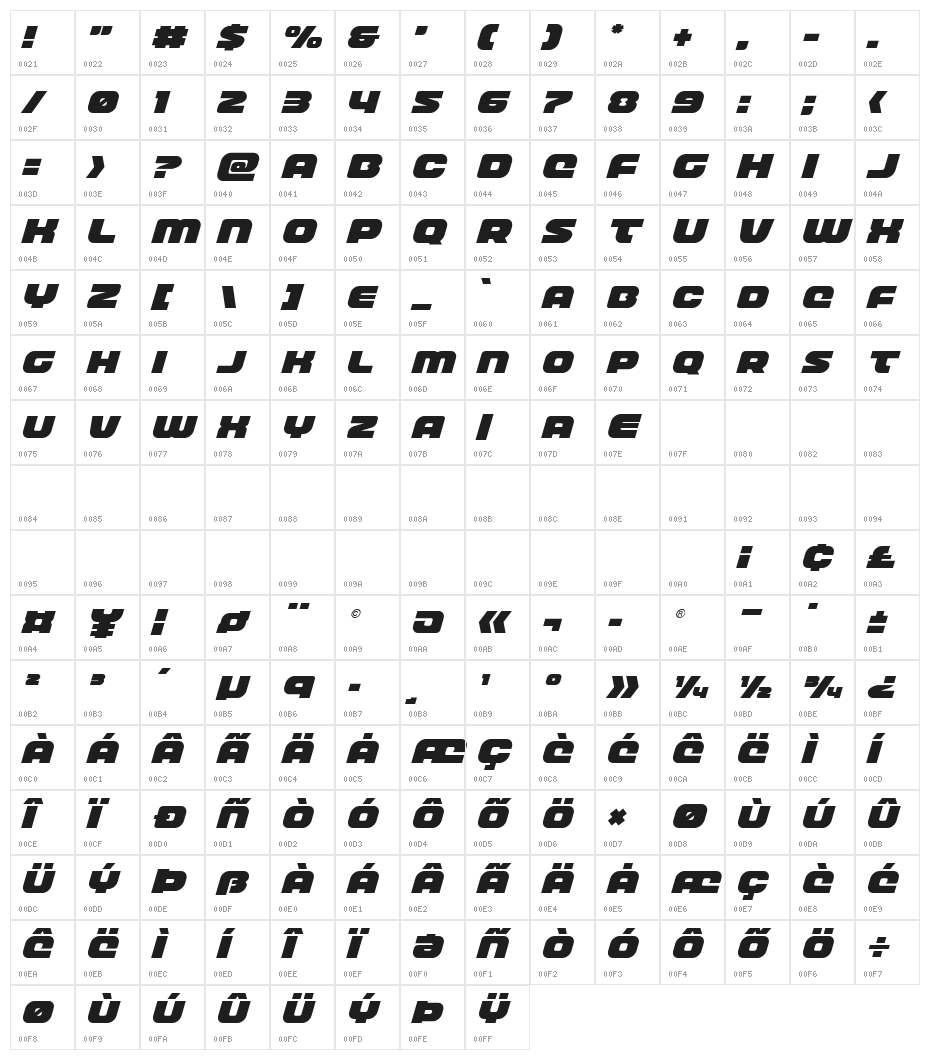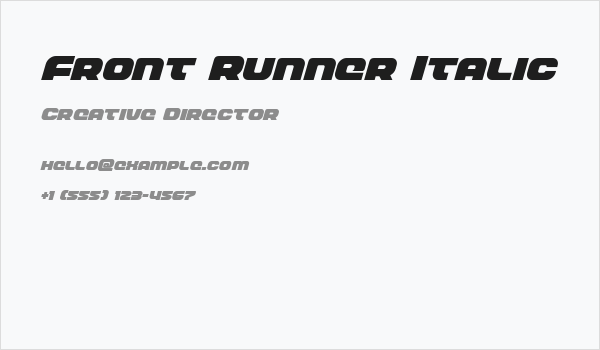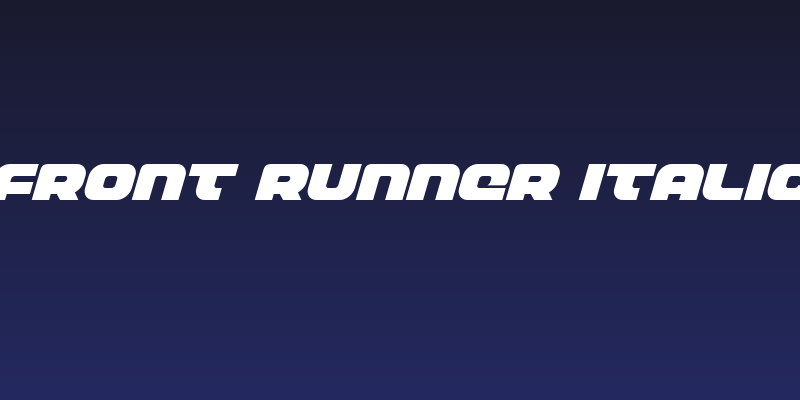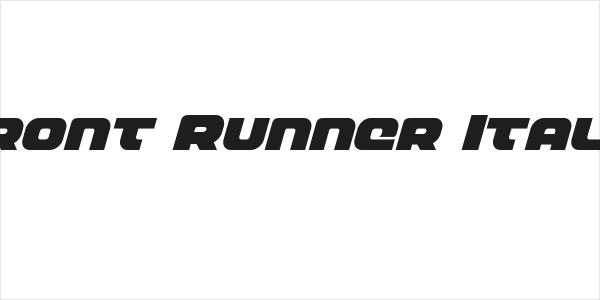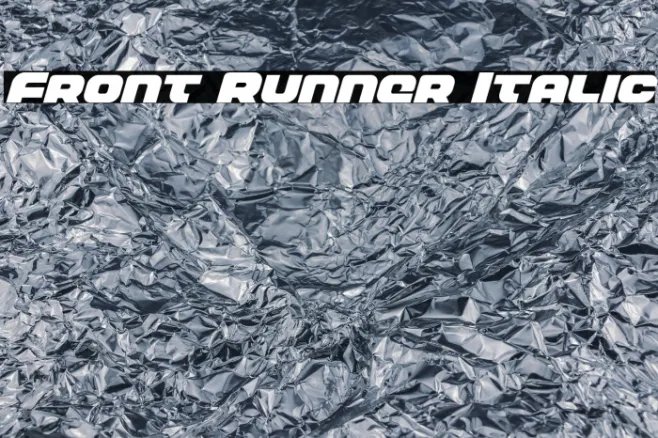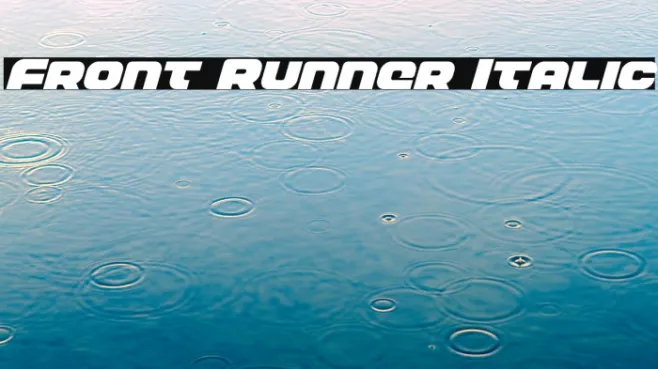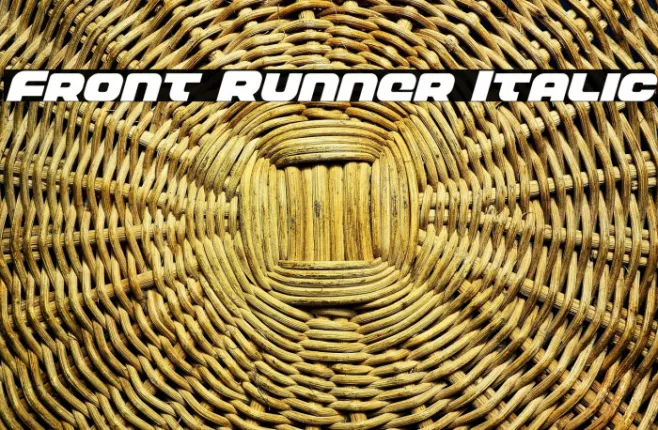
Front Runner Italic Font
Front Runner Italic Description
This font features a bold and dynamic design with a strong italic slant, giving it a sense of motion and energy. The characters are wide and have a robust presence, making them highly visible and impactful. The strokes are thick and consistent, providing a uniform appearance across all characters. The font's style is modern and sleek, suitable for conveying a sense of speed and forward momentum. It includes a full set of uppercase and lowercase letters, numerals, and a variety of special characters, making it versatile for different design needs.
| Proposed Projects | Ideal for sports branding, automotive designs, dynamic posters, and modern advertising campaigns. |